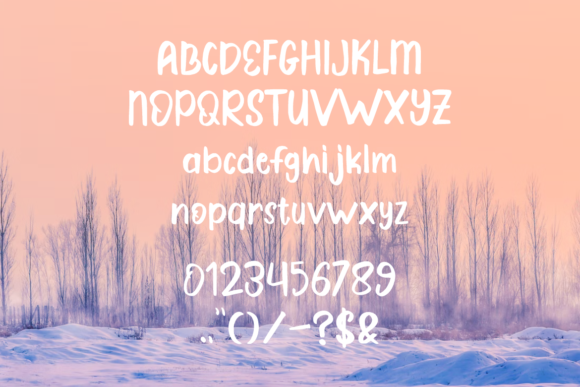
Ceremony Font: The Perfect Choice for Romantic and Personalized Designs
Are you a designer or crafter looking for a font that exudes romance and elegance? Look no further than Ceremony Font, a sweet and delicate handwritten font that’s perfect for creating beautiful wedding invitations, cards, and other designs that require a personal touch.
What is Ceremony Font?
Ceremony Font is a modern, handwritten font that’s designed to capture the essence of love and romance. Its dainty and joyful feel makes it an ideal choice for designers and crafters who want to create unique and personalized designs for special occasions.
Key Features of Ceremony Font
- Sweet and delicate: Ceremony Font features a sweet and delicate design that’s perfect for creating romantic and elegant designs.
- Handwritten feel: The font has a handwritten feel that adds a personal touch to any design.
- Dainty and joyful: The font’s dainty and joyful feel makes it perfect for creating designs that require a light and airy feel.
- Romantic and elegant: Ceremony Font is designed to exude romance and elegance, making it perfect for wedding invitations, cards, and other special occasion designs.
Uses for Ceremony Font
Ceremony Font is a versatile font that can be used for a variety of design projects, including:
- Wedding invitations: The font’s romantic and elegant feel makes it perfect for creating beautiful wedding invitations.
- Cards: Ceremony Font is ideal for creating personalized cards for special occasions, such as anniversaries, birthdays, and holidays.
- Stationery: The font can be used to create custom stationery, including letterheads, notecards, and journals.
- Digital designs: Ceremony Font can be used for digital designs, including social media graphics, blog posts, and website headers.
Why Choose Ceremony Font?
There are many reasons why designers and crafters choose Ceremony Font for their projects, including:
- Unique and personalized: The font’s handwritten feel and delicate design make it a unique and personalized choice for designs.
- Elegant and sophisticated: Ceremony Font exudes elegance and sophistication, making it perfect for high-end designs.
- Easy to read: The font is easy to read, even at small sizes, making it perfect for designs that require a lot of text.
- Versatile: Ceremony Font can be used for a variety of design projects, from wedding invitations to digital designs.
Tips for Using Ceremony Font
Here are some tips for using Ceremony Font in your designs:
- Pair with other fonts: Ceremony Font can be paired with other fonts to create a unique and interesting design.
- Use for headings and titles: The font’s elegant and sophisticated feel makes it perfect for headings and titles.
- Add embellishments: Consider adding embellishments, such as flowers or hearts, to give your design a more romantic feel.
- Experiment with colors: Ceremony Font looks beautiful in a variety of colors, from soft pastels to rich jewel tones.
Ceremony Font is a beautiful and elegant font that’s perfect for designers and crafters who want to create romantic and personalized designs. Its sweet and delicate feel makes it ideal for wedding invitations, cards, and other special occasion designs. With its versatility and ease of use, Ceremony Font is a great choice for any design project that requires a touch of elegance and sophistication.